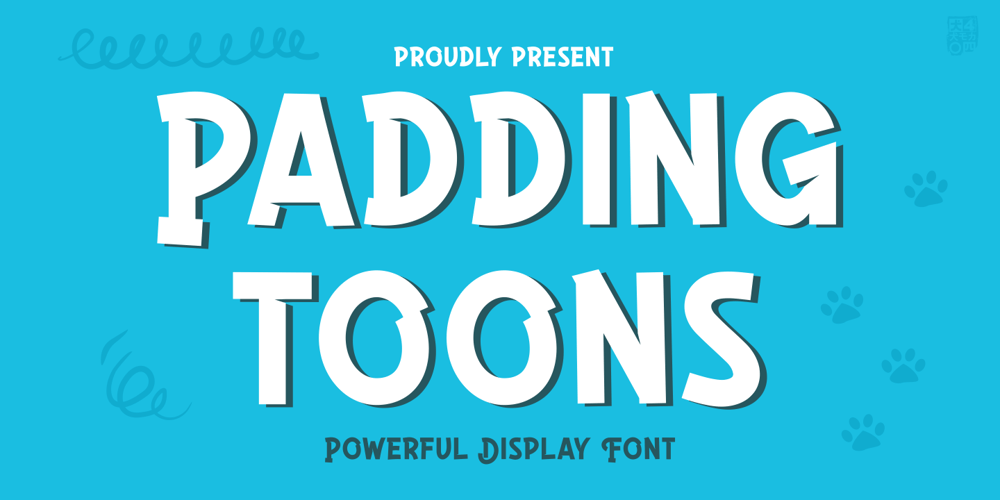
Paddingtoons Font Family was designed by Inu Mocca and published by Inumocca. Paddingtoons contains 1 styles and family package options. PADDINGTOONSinspiration from children book style, its realy simple and eyecathing.Paddingtoons Powerful Display font, All Caps With Variant for the Capital Letters.is perfect for Poster quotes, flyer, headings, Magazine, Children Books cover, blogs, logos, invitations and more.- Unique glyphs- Multilingual Characters- UPPERCASE- Lowercase- Numeric- Symbol- Punctuation Characterinumoccatype illustration and typo Studio